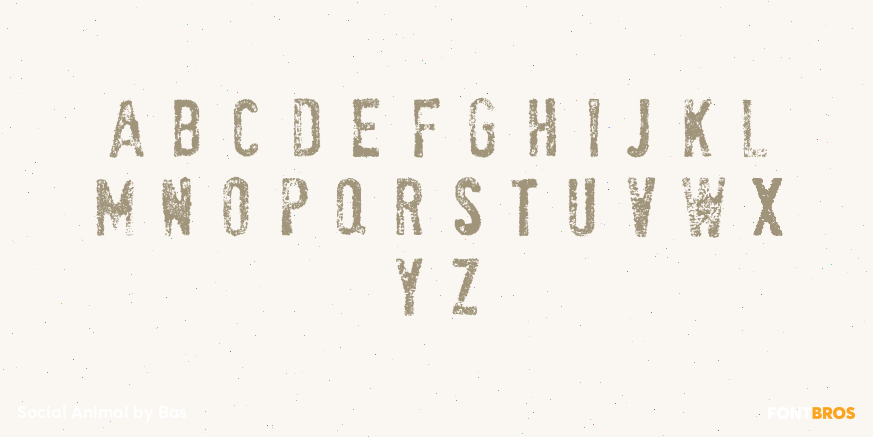
Social Animal
Free DownloadSocial Animal is a bold, distressed display font with a gritty, industrial attitude. Its rough edges, textured finish, and stencil-like construction give it a worn, vintage feel that reads loud and unmistakable, especially in all-caps settings.
With its grunge-driven character, this single-style design is well suited to posters, apparel graphics, packaging, signage, and branding that calls for something raw, weathered, and a little rebellious. It has the kind of visual weight that can bring instant edge to headline work and other decorative display uses.
Created by Bas, Social Animal offers 141 glyphs in one free-download style, making it a strong choice for projects that need bold texture and an intentionally imperfect finish.